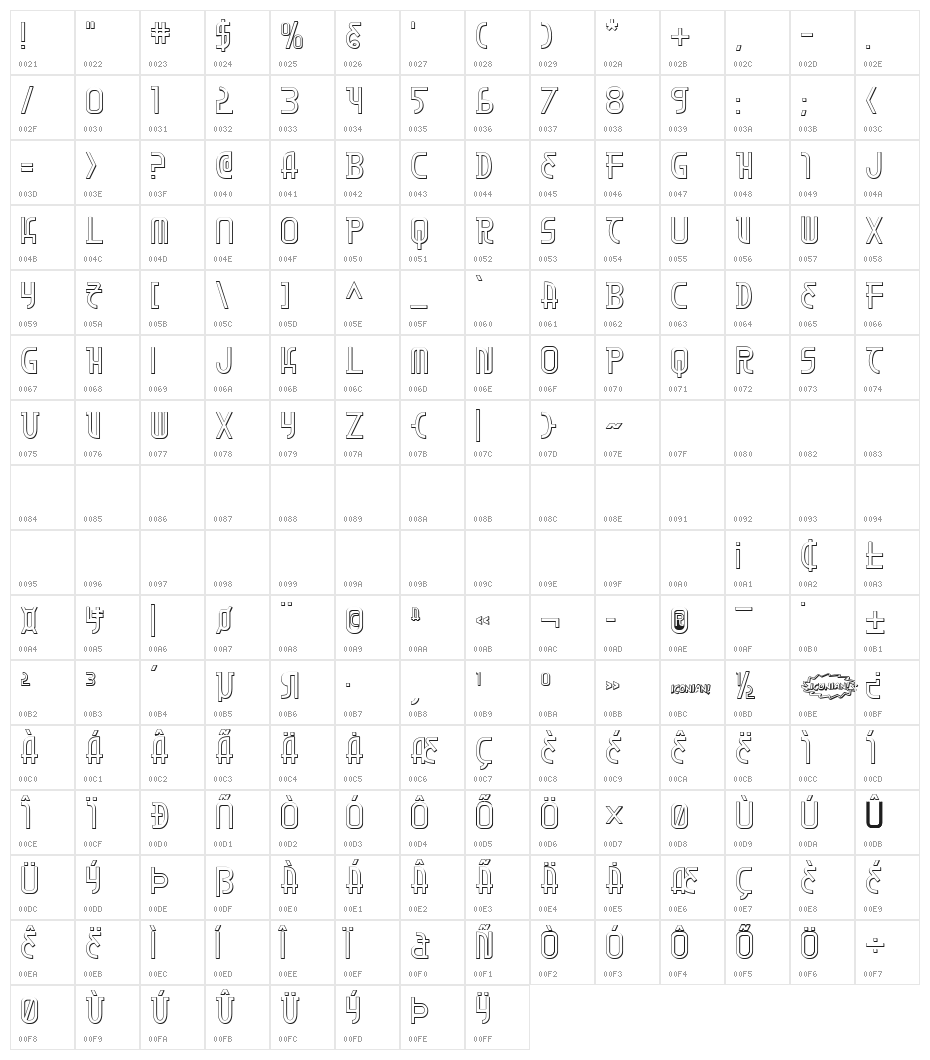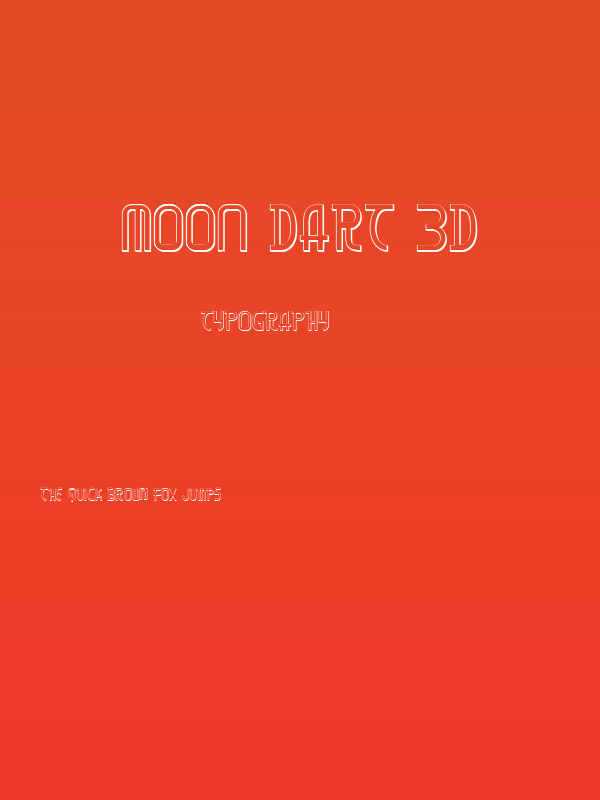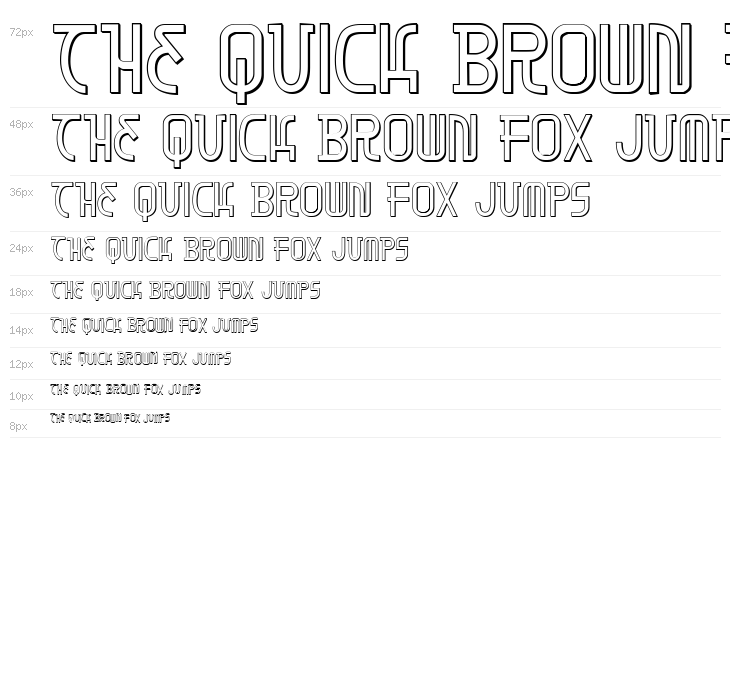
Moon Dart 3D Font
Moon Dart 3D Description
This font features a futuristic and geometric design with a three-dimensional effect. The characters are outlined with a consistent stroke width, creating a hollow appearance that adds depth and dimension. The uppercase letters are bold and structured, with angular lines and sharp corners, giving a modern and tech-inspired look. The numerals and special characters maintain the same stylistic approach, ensuring uniformity across all glyphs. The font's unique style makes it suitable for creative and innovative projects that require a standout typographic element.
| Proposed Projects | Ideal for sci-fi themed designs, tech branding, video game titles, and futuristic posters. |